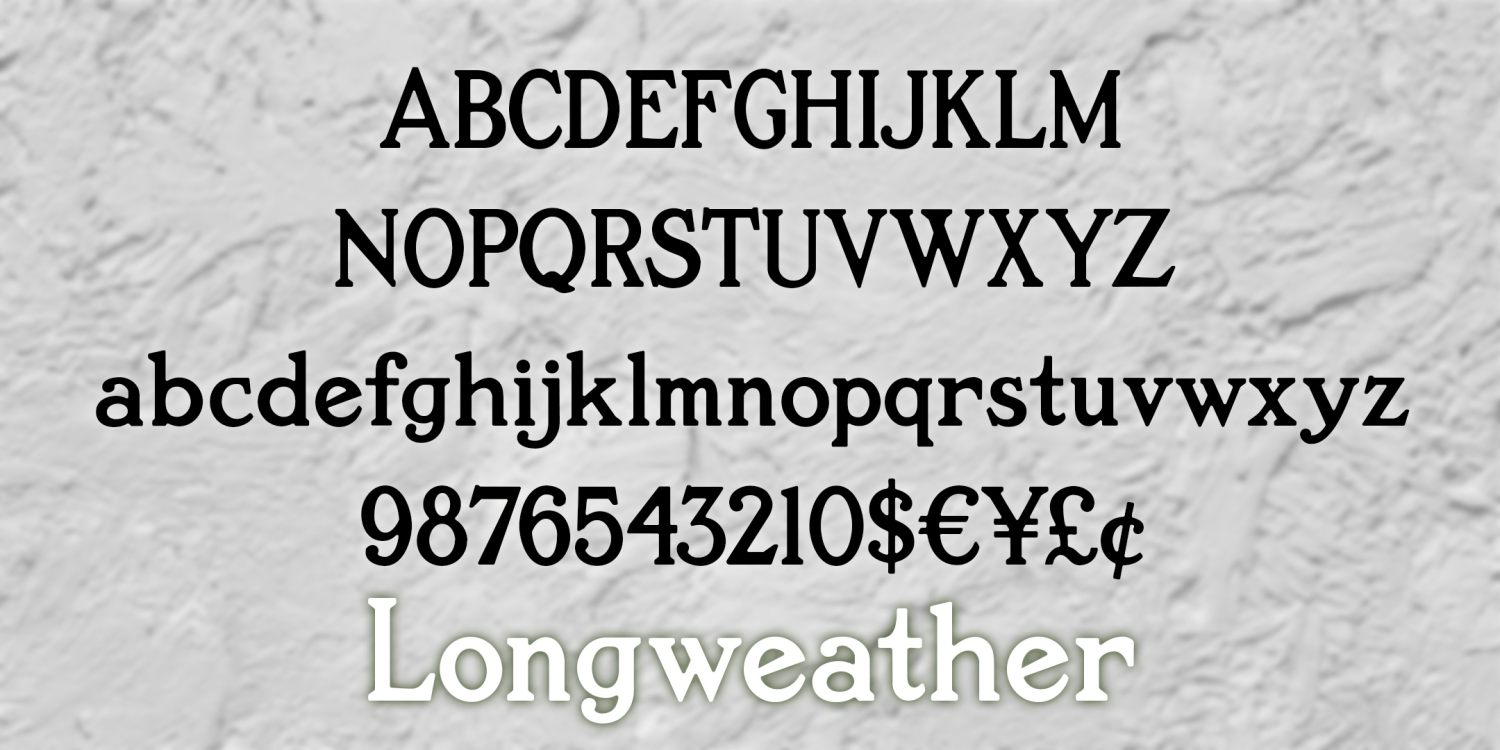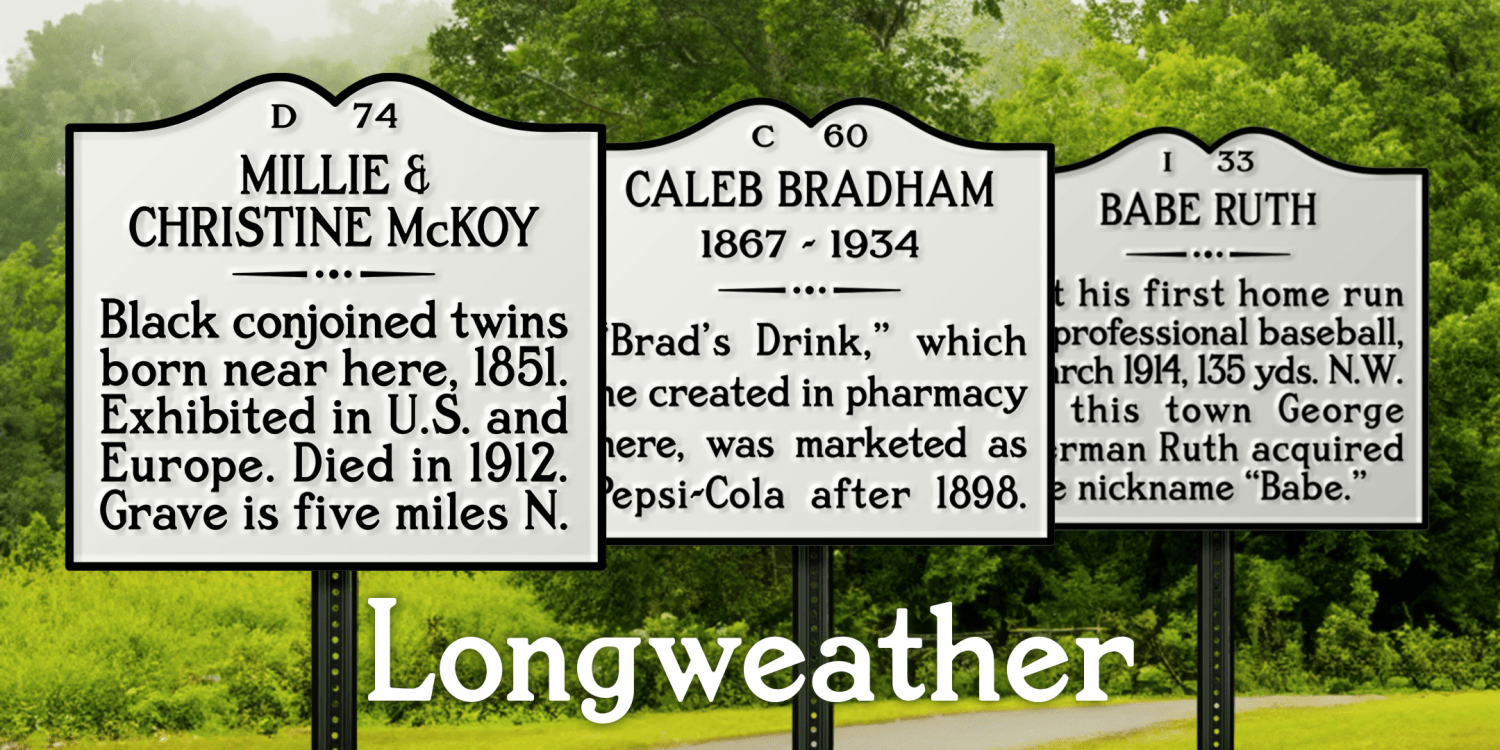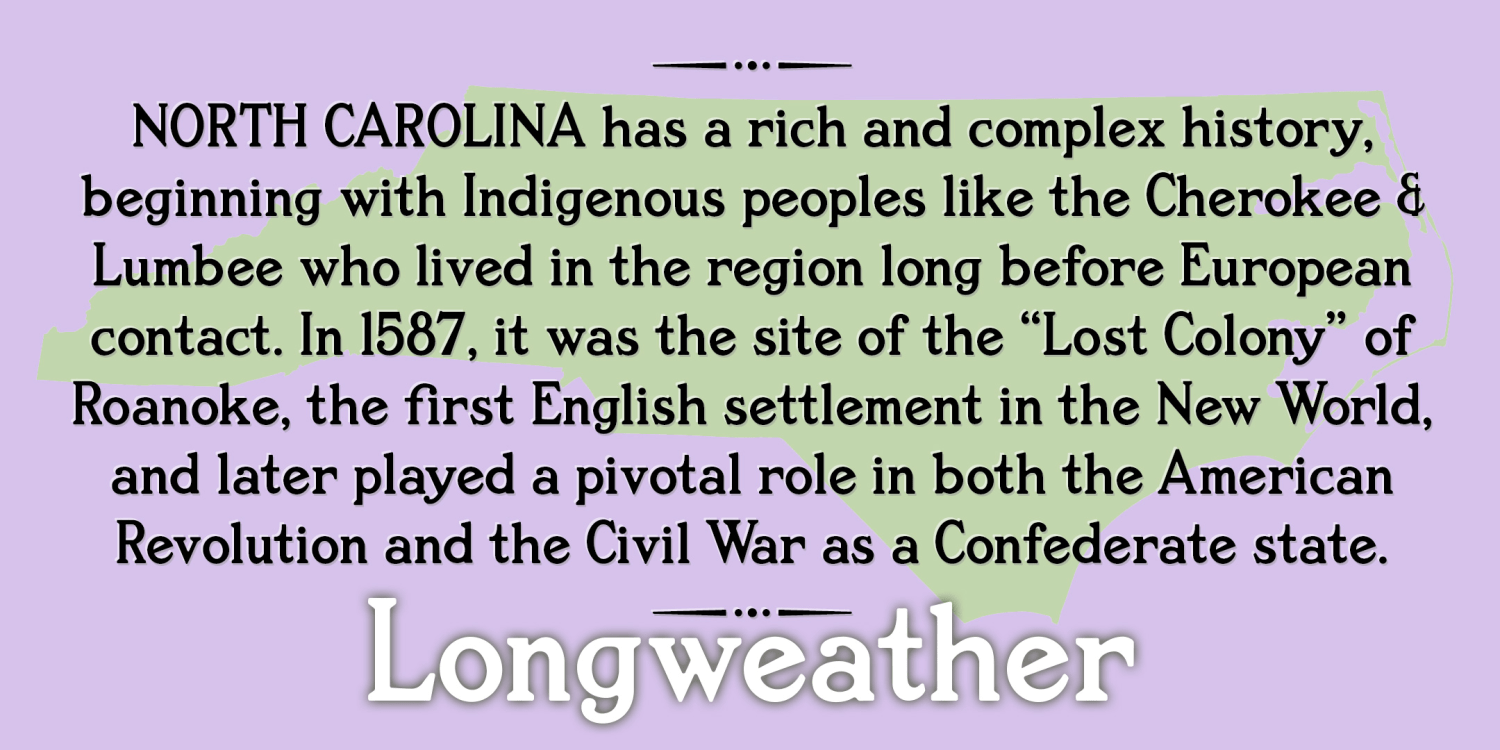
Longweather
Font Family by Harold's Fonts
LONGWEATHER is a serif font with the gentle feel of the early 20th century. The letterforms convey homeyness and history without being overly familiar. LONGWEATHER was inspired by the North Carolina historical markers program begun in 1935. These cast metal signs appear across the state, drawing attention to places of interest. Unfortunately, I was not able to gather much more information about the signs themselves, but they are all available online for your enjoyment.